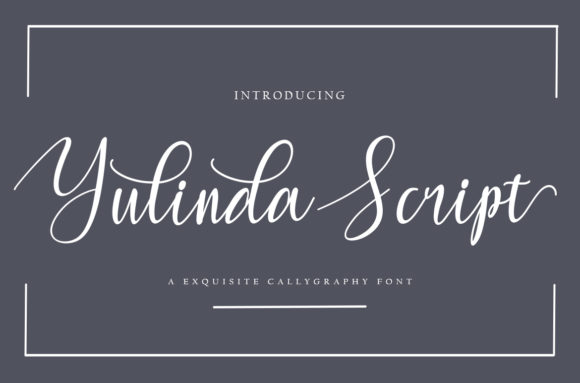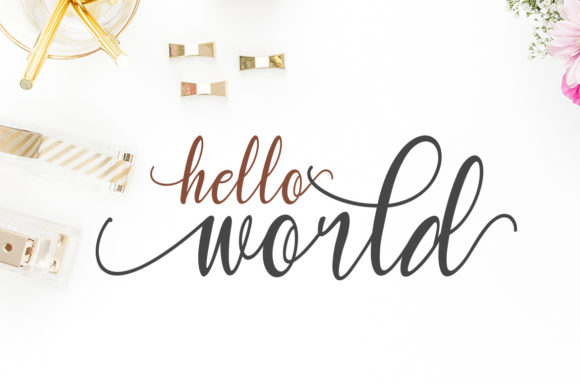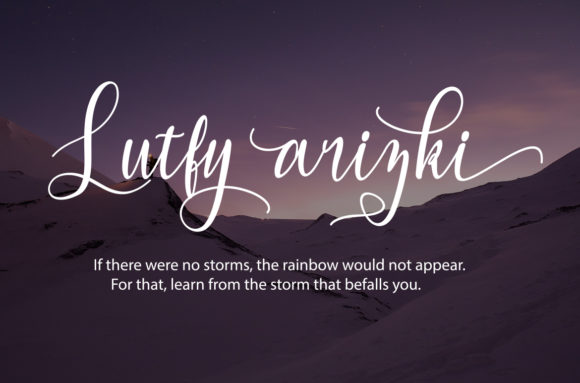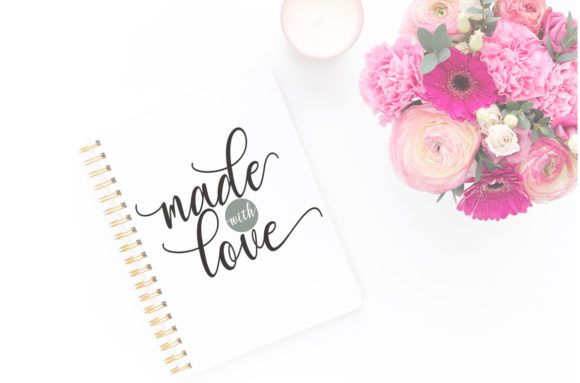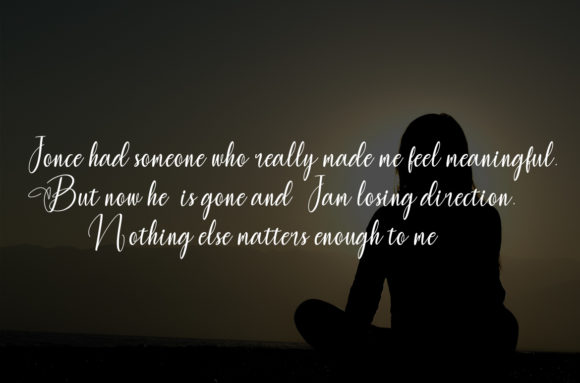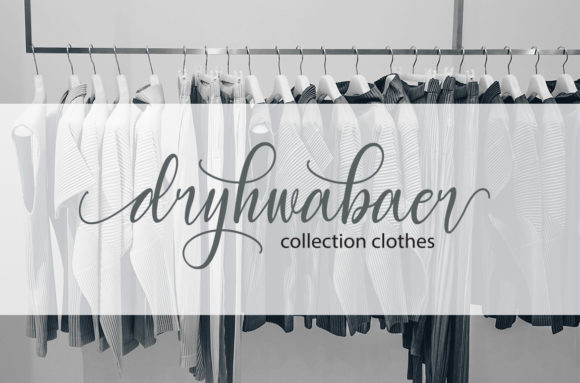
Yulinda Font
About Yulinda Font
Inspired by classic caligraphy, Yulinda is a stunning, sophisticated and elegant script that will effortlessly elevate any design idea.